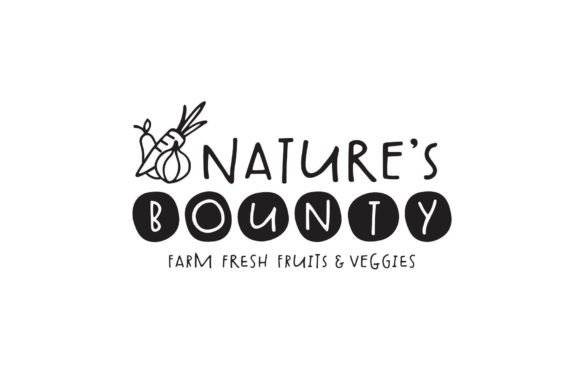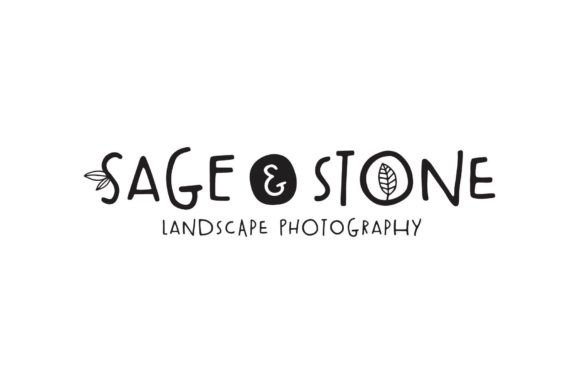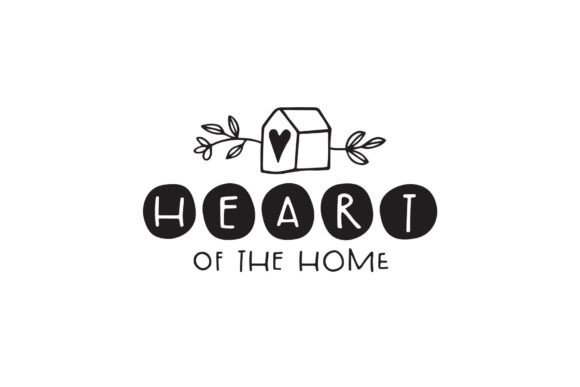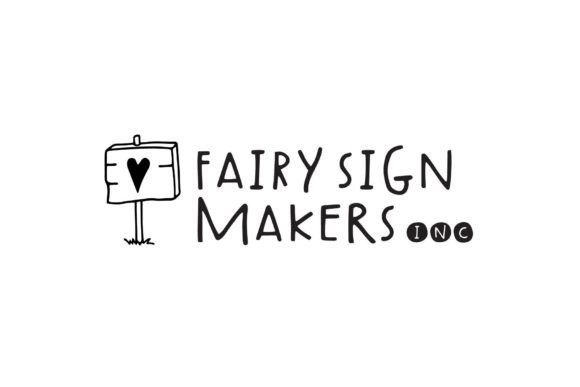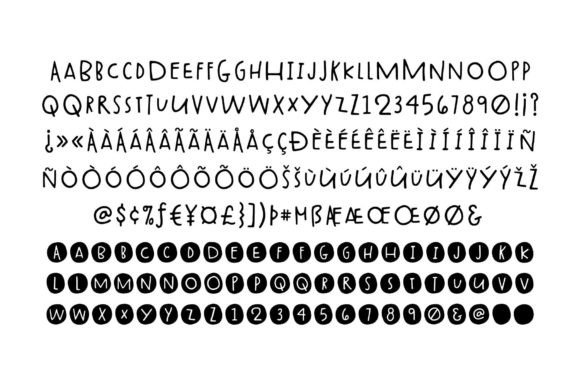
Cottage and Farmhouse Font: A Charming Choice for Your Design Needs
Are you looking for a font that exudes warmth, simplicity, and a touch of rustic charm? Look no further than the Cottage and Farmhouse Font. This delightful font is perfect for designers and crafters who want to add a personal touch to their projects. In this article, we’ll dive into the features and benefits of the Cottage and Farmhouse Font, and explore how it can elevate your designs.
A Sweet and Simple Sans Serif Font
The Cottage and Farmhouse Font is a charming, sweet, and simple sans serif font that is sure to capture the hearts of designers and crafters alike. Its clean lines and rounded edges give it a friendly and approachable feel, making it perfect for a wide range of design applications. Whether you’re creating a logo, signage, or marketing materials, this font is sure to add a touch of warmth and personality to your designs.
Alternate Version with Dotted Characters
One of the unique features of the Cottage and Farmhouse Font is its alternate version with characters in dots. This playful twist adds a whimsical touch to your designs and allows for endless creative possibilities. Imagine using the dotted version to create a custom logo or to add a decorative element to your typography. The possibilities are endless!
Fun Nature-Themed Doodles
To complement the Cottage and Farmhouse Font, you’ll also receive a set of fun nature-themed doodles. These delightful illustrations feature elements like flowers, leaves, and birds, and can be used to add a touch of personality to your designs. Whether you’re creating a logo, social media graphics, or marketing materials, these doodles are sure to bring a smile to your audience’s faces.
Perfect for Small Business Logos and Country-Inspired Typography
The Cottage and Farmhouse Font is perfect for small business logos, country-inspired typography, and a wide range of design applications. Its charming and rustic feel makes it an excellent choice for businesses that want to convey a sense of warmth, friendliness, and approachability. Whether you’re a baker, a florist, or a crafty entrepreneur, this font is sure to help you establish a strong brand identity.
So, what are the benefits of using the Cottage and Farmhouse Font for designers and crafters? Here are just a few:
- Easy to read: The font’s clean lines and simple design make it easy to read, even at small sizes.
- Versatile: The font can be used for a wide range of design applications, from logos and signage to marketing materials and social media graphics.
- Customizable: The alternate version with dotted characters and the set of nature-themed doodles allow for endless creative possibilities.
- Time-saving: The font and doodles can be used to create professional-looking designs in no time, saving you time and effort.
Tips for Using the Cottage and Farmhouse Font
Here are a few tips for using the Cottage and Farmhouse Font in your designs:
- Pair it with other fonts: The Cottage and Farmhouse Font pairs well with other fonts, such as serif fonts or script fonts. Experiment with different combinations to find the perfect look for your design.
- Use it for headings and titles: The font’s bold and playful feel makes it perfect for headings and titles. Use it to add a touch of personality to your designs.
- Add a personal touch: Use the nature-themed doodles to add a personal touch to your designs. They can be used to create custom illustrations or to add a decorative element to your typography.
| Font Name | Cottage and Farmhouse Font |
| Author | Denise Chandler |
In conclusion, the Cottage and Farmhouse Font is a charming and versatile font that is perfect for designers and crafters who want to add a touch of warmth and personality to their designs. Its sweet and simple design, alternate version with dotted characters, and set of fun nature-themed doodles make it an excellent choice for a wide range of design applications. Whether you’re creating a logo, signage, or marketing materials, this font is sure to help you establish a strong brand identity and connect with your audience.